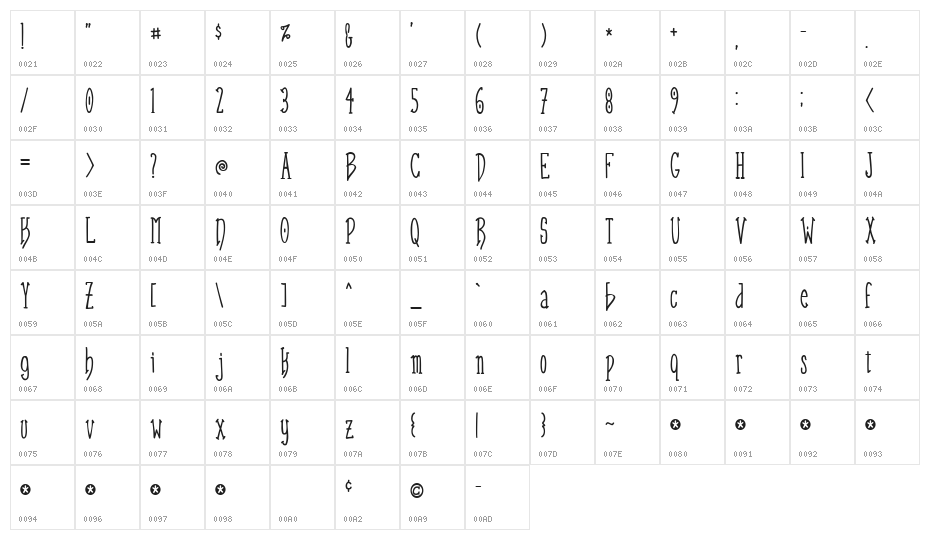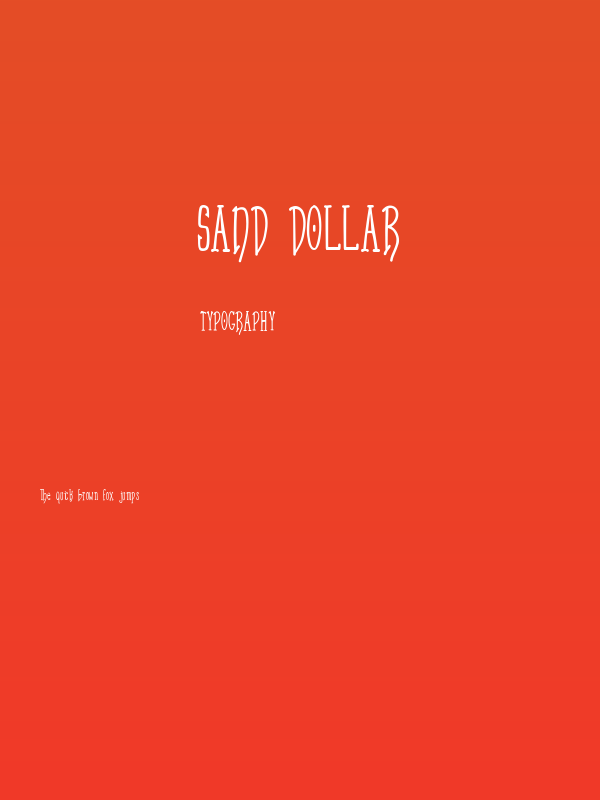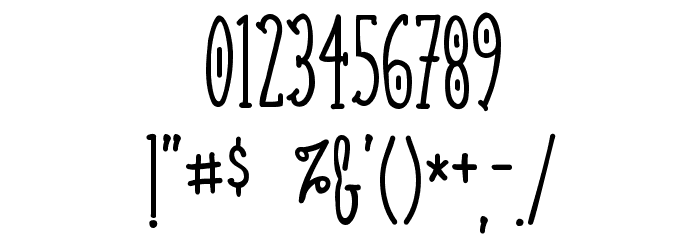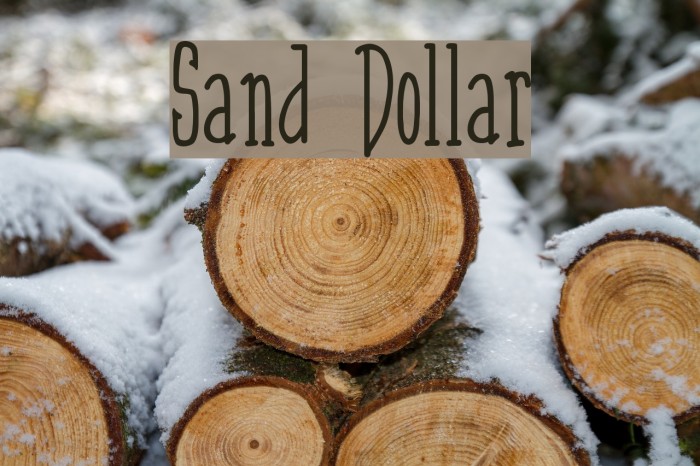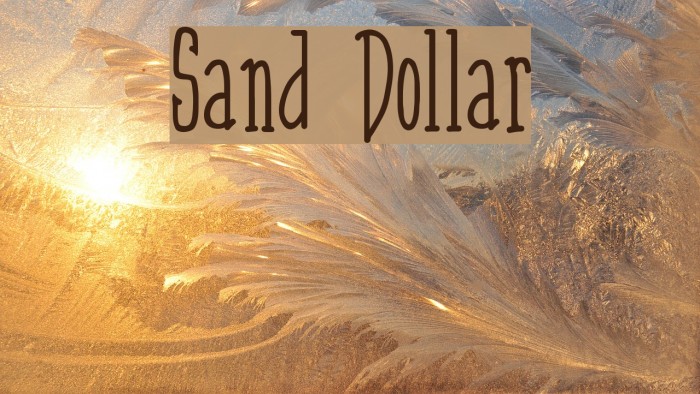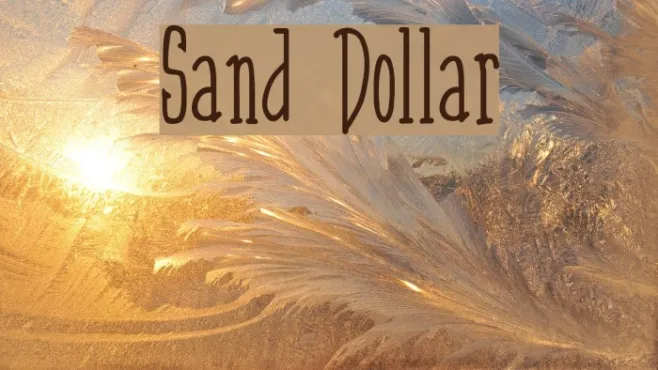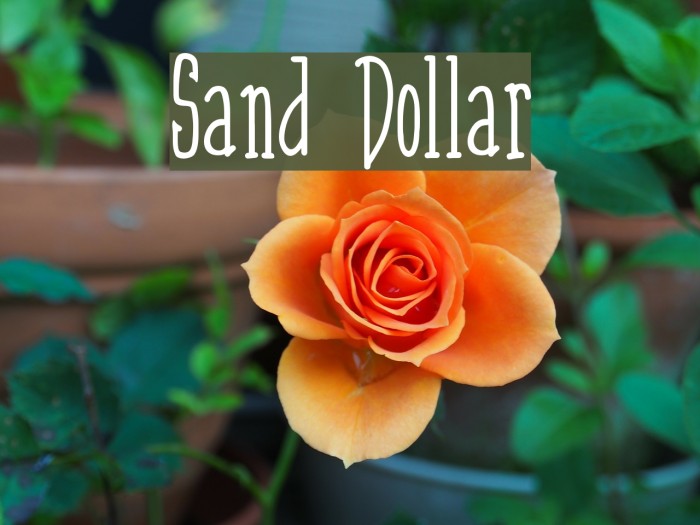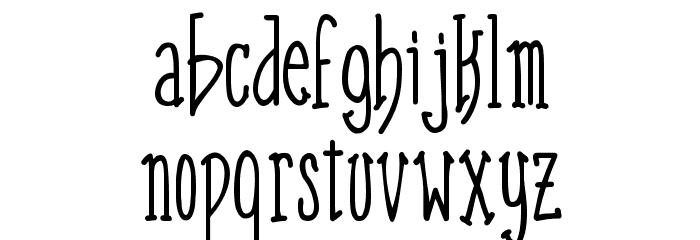
Sand Dollar Font
Sand Dollar Description
This font features a whimsical and playful design, characterized by its tall, narrow letterforms and slightly irregular strokes. The uppercase letters have a distinct, elongated appearance with subtle curves, while the lowercase letters maintain a consistent style that complements the uppercase. The numbers and special characters are designed to match the overall quirky and artistic feel, making it suitable for creative projects. The font's unique style is reminiscent of hand-drawn lettering, adding a touch of personality and charm to any text.
| Proposed Projects | Ideal for children's books, greeting cards, playful branding, and artistic posters. |